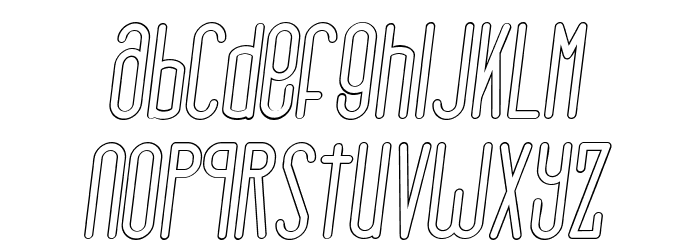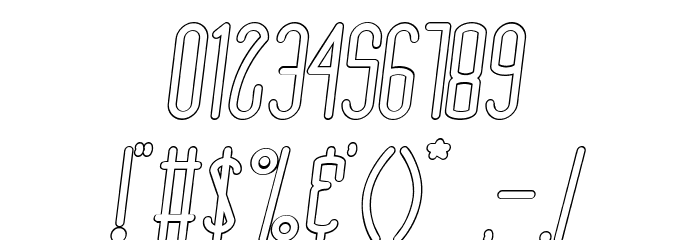
Rhantica-Regular Ital Out Font
This font features a modern and sleek design with an italicized, outlined style. The characters are elongated and slightly condensed, giving them a unique and contemporary appearance. The uppercase and lowercase letters maintain a consistent height, creating a harmonious flow across the text. The numerals and special characters are designed to match the overall aesthetic, with smooth curves and sharp angles. The outline effect adds a layer of depth, making the font suitable for eye-catching designs. Its clean lines and minimalistic approach make it versatile for various creative projects.
A modern, italicized outline font with sleek, elongated characters.
- Proposed Projects: Ideal for branding, posters, headlines, and digital artwork where a modern and stylish look is desired.